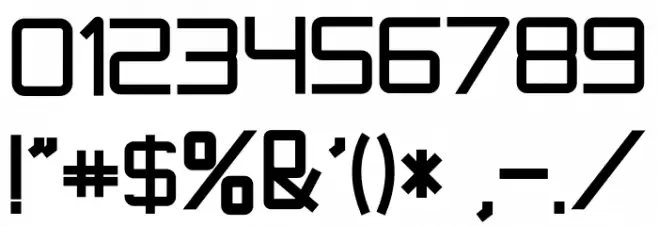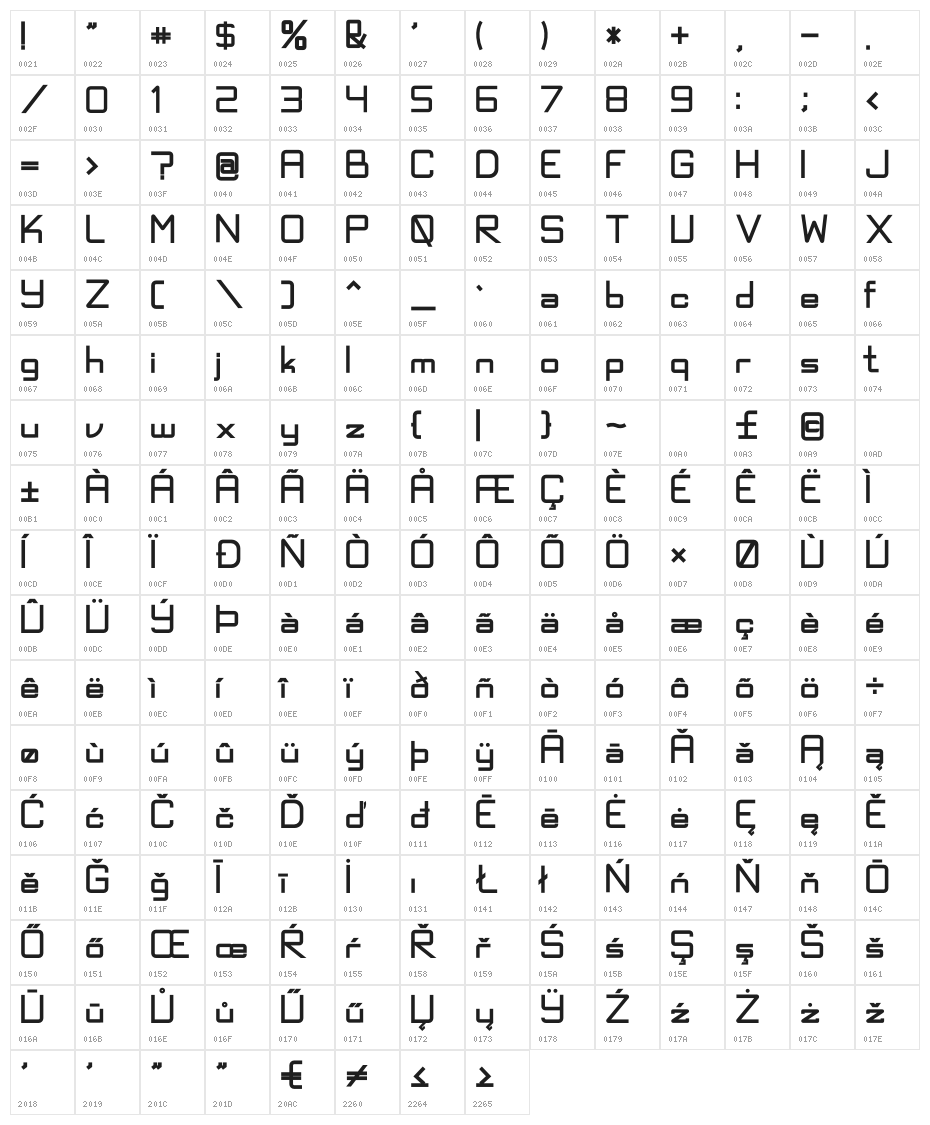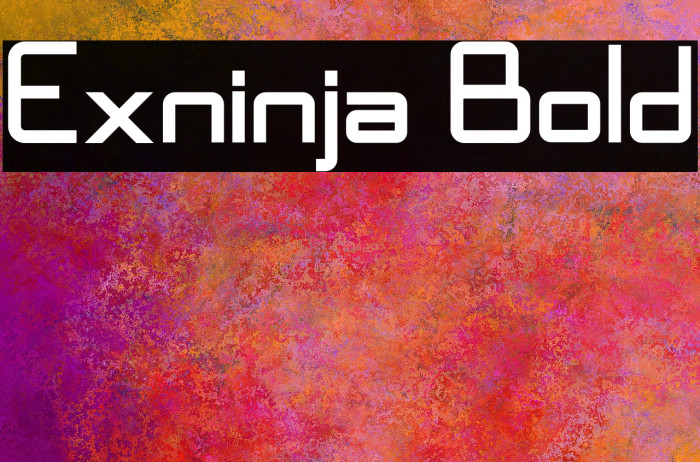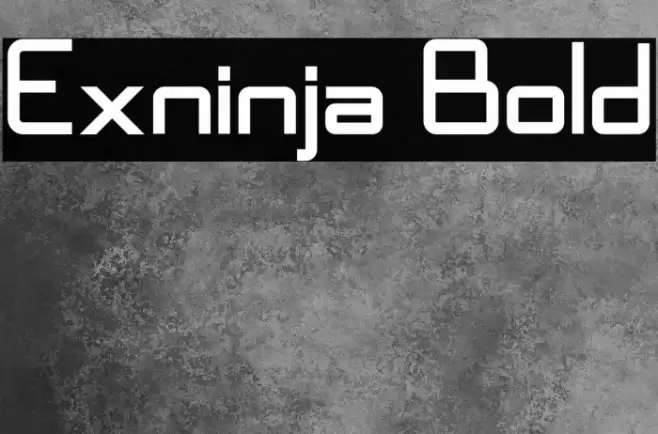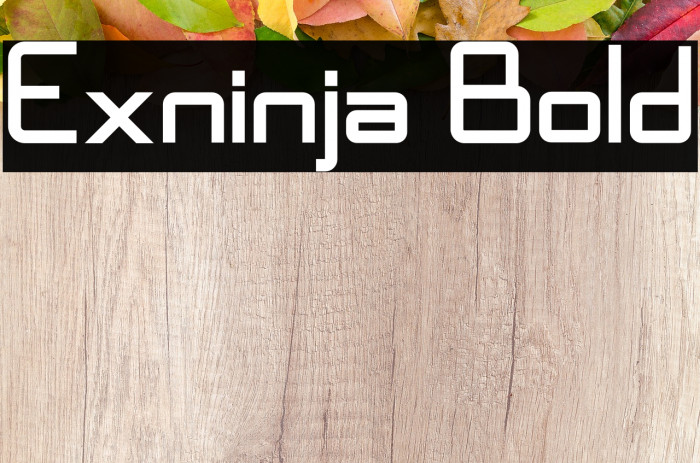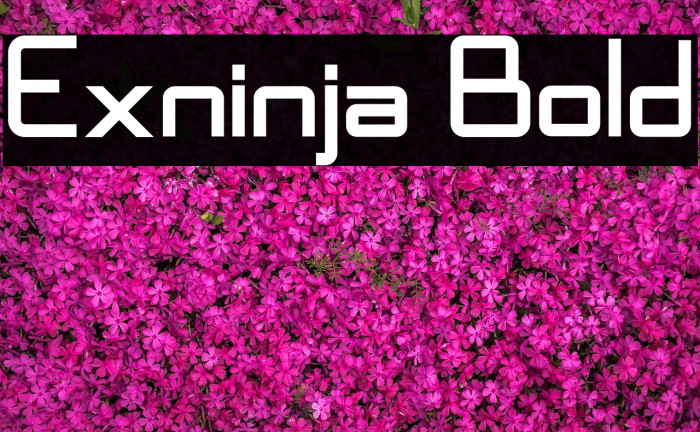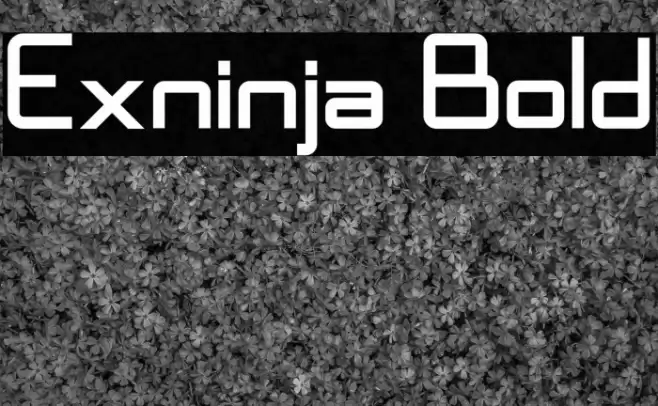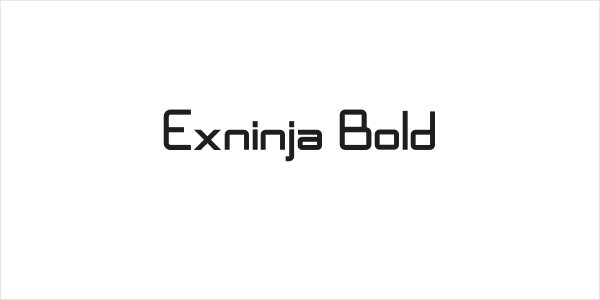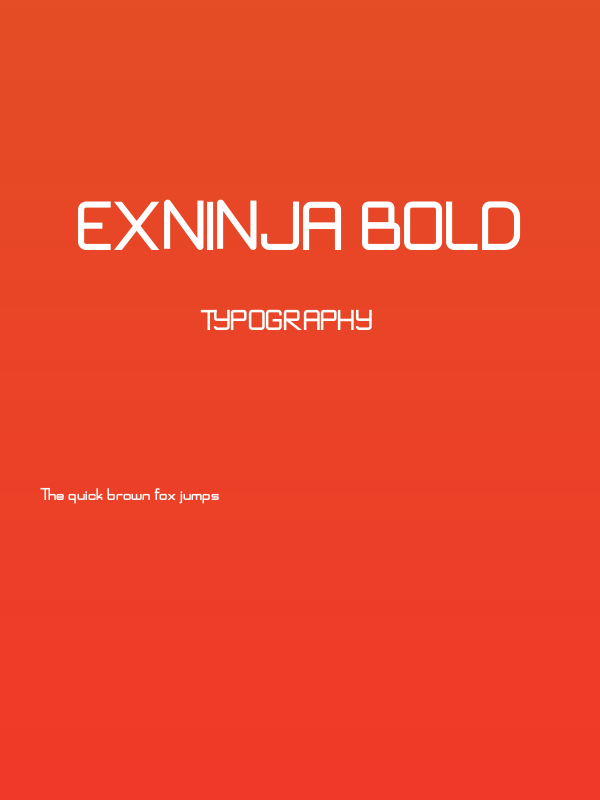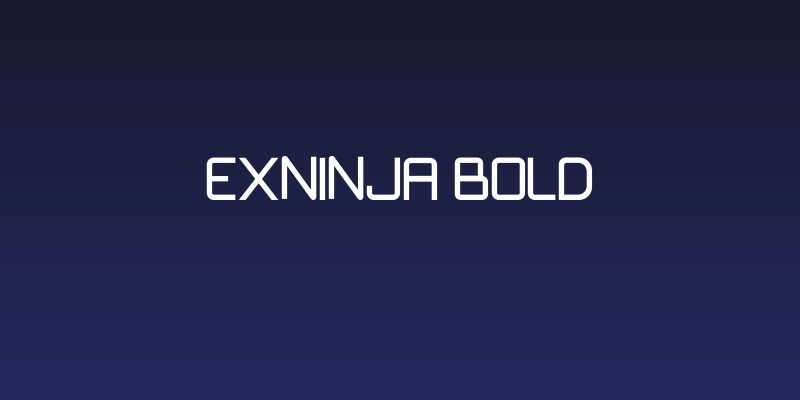
Exninja Bold Font
Exninja Bold Description
This font features a bold and geometric design with a modern and futuristic aesthetic. The characters are constructed with clean, straight lines and sharp angles, giving it a structured and technical appearance. The uppercase letters are uniform in height, while the lowercase letters maintain a consistent baseline, enhancing readability. The numerals are equally bold and align well with the overall style, making them suitable for digital displays. Special characters are designed to complement the alphanumeric set, maintaining the font's cohesive look. The font's boldness and clarity make it ideal for impactful headlines and attention-grabbing designs.
| Use Case | Headlines, Logos, Digital displays |
| Proposed Projects | Ideal for technology branding, digital interfaces, video game titles, and futuristic-themed posters. |